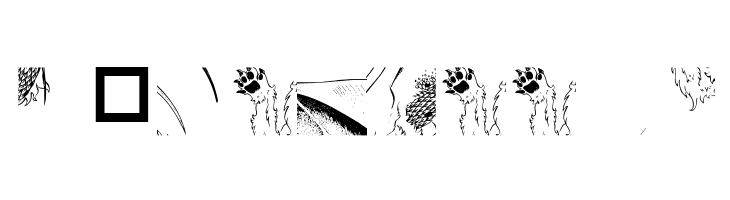
( CloutierFontes - www.cloutierfontes.ca )
Ornamental fleur-de-lys symbol font with diverse styles.
( Cyberbuny Creations )
Ornamental dingbat set with swirling, floral, and abstract motifs.
( Dani Foster Herring - dani3d.com/ )
Ornamental font with detailed Christmas wreath illustrations.
( Dani Foster Herring - dani3d.com/ )
A decorative dingbat set of illustrated women's heads in a vintage style.
( Digital Magic - www.graphicdesignplus.com/helen/digitalmagic/ )
A collection of decorative floral and ornamental motifs.
( Digital Magic - www.graphicdesignplus.com/helen/digitalmagic/ )
Ornamental dingbat font with intricate, symmetrical motifs.
( Digital Magic - www.graphicdesignplus.com/helen/digitalmagic/ )
Intricate square patterns with geometric shapes, not a valid font.
( Digital Magic - www.graphicdesignplus.com/helen/digitalmagic/ )
A diverse set of decorative symbols and dingbats.
( Dingbat Crazy - dingbatcrazy.fateback.com/ )
Eclectic dingbat font with diverse symbols and decorative motifs.
( Dingbat Dungeon )
Rows of thick-bordered square placeholders, some with partial internal patterns.